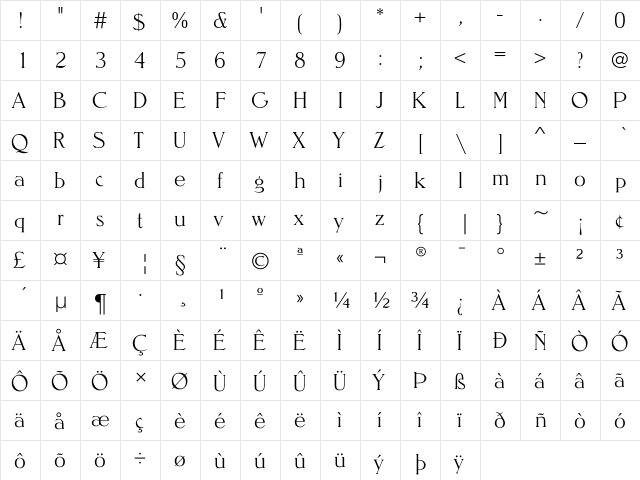
NevadaEF ExtraLight
Design Context for NevadaEF Typeface
NevadaEF takes a measured approach to typography — its balanced proportions and neutral character make it a reliable workhorse for both digital and print work. Its slender proportions lend an understated elegance to any composition.